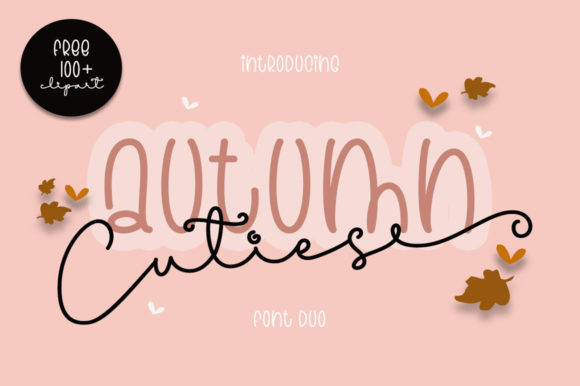
Enter the enchanting world of Cuties Autumn Duo Font, a mesmerizing script font family that will ignite your creativity and leave you spellbound. This exquisite font duo, meticulously crafted by jauzadesign, embodies the spirit of autumn's allure, capturing the essence of crisp leaves and cozy sweaters.
With its captivating display font and elegant script companion, Cuties Autumn Duo Font transports you to a world of heartfelt expression and artistic flair. Each glyph and swash dances across the page with grace and charm, thanks to its PUA encoding, ensuring effortless access to a treasure trove of typographic wonders.
Immerse yourself in the beauty of Cuties Autumn Duo Font and watch your designs blossom into masterpieces. Its enchanting style adds a touch of magic to invitations, branding, logos, social media posts, and any project yearning for a dash of whimsy and elegance. Let your imagination soar as you explore the endless possibilities that await you with this remarkable font duo.
Fall in love with the allure of Cuties Autumn Duo Font and embark on a creative journey like no other. Its versatility knows no bounds, making it the perfect choice for passionate designers, bloggers, and anyone seeking to add a touch of enchantment to their projects. Unleash your inner artist and let Cuties Autumn Duo Font guide you towards typographic greatness.